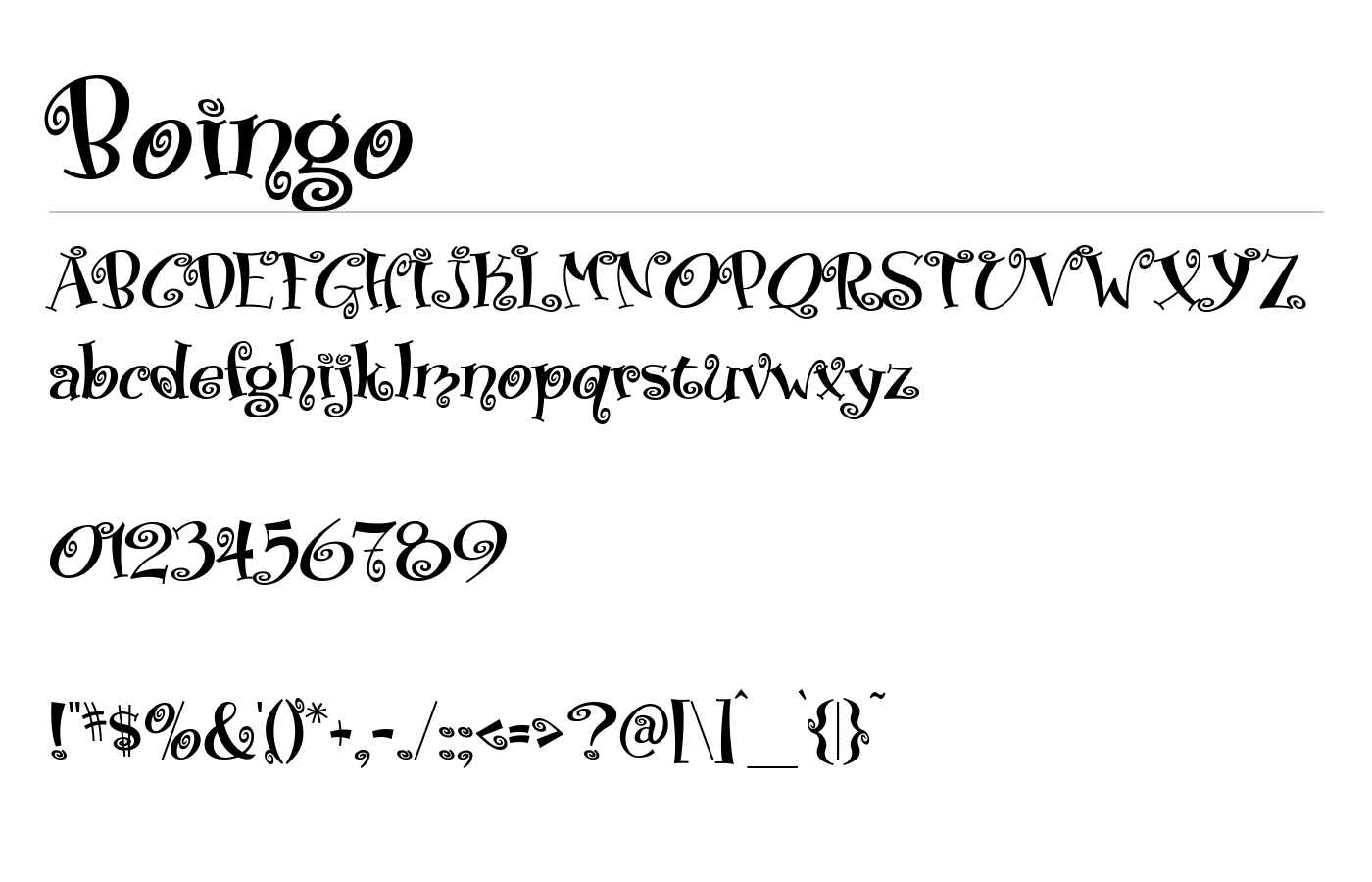
Boingo Font is a whimsical and decorative serif typeface full of playful curls and swirls that give it a lively, quirky personality. Its unique letterforms and high contrast strokes make it ideal for fun, creative projects such as children’s books, party invitations, or artistic branding where a sense of joy and imagination is desired. This font works best in display settings where its intricate details can shine without sacrificing readability.
Boingo Font
About Boingo Font